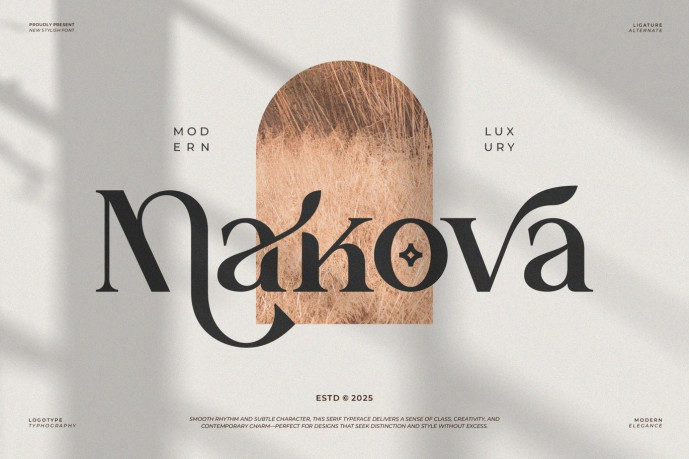
Makova Font
Makova Font is a modern, minimalist typeface suitable for all brand and logo designs. This modern, minimalist serif font has a beautiful character. It’s suitable for invitation card templates, cool logos, movie titles, film names, business cards, book titles, brand names, and various other designs. Makova Serif is a fluid serif font that exudes sophistication and a sense of immediacy. Its elegant ligatures make this font the perfect partner for any project.